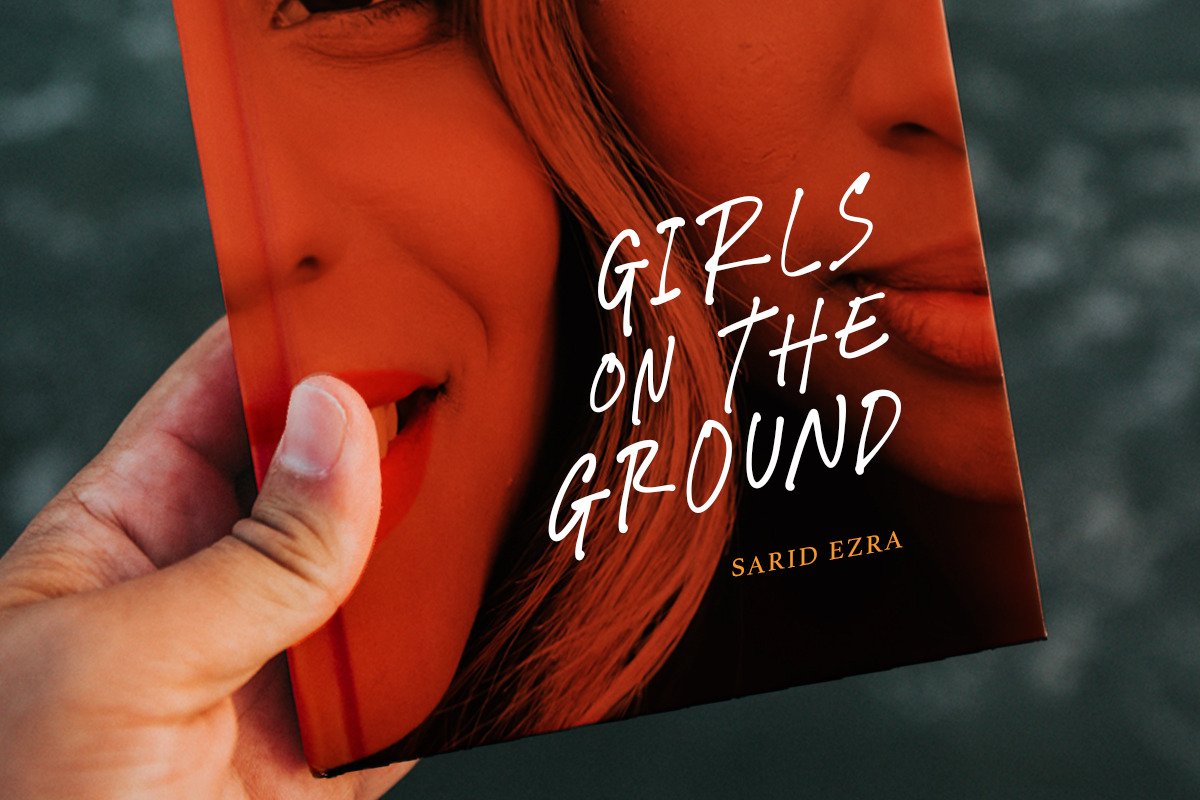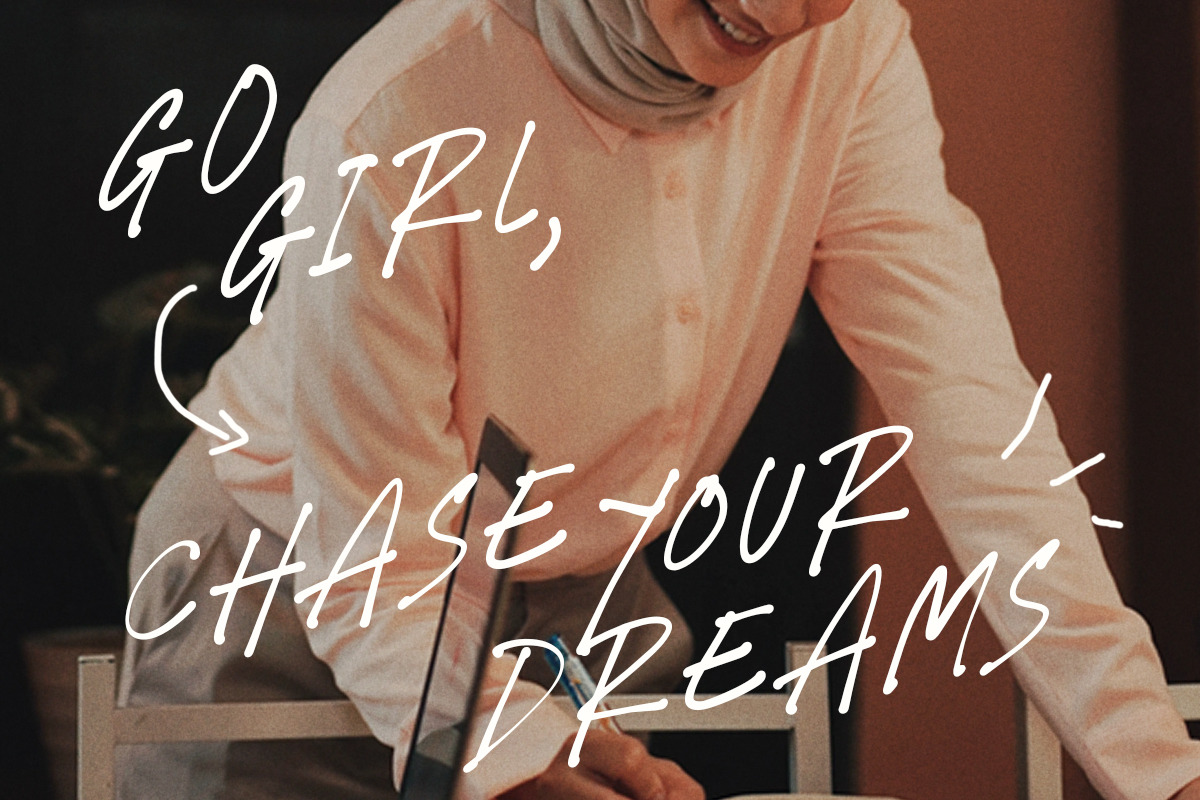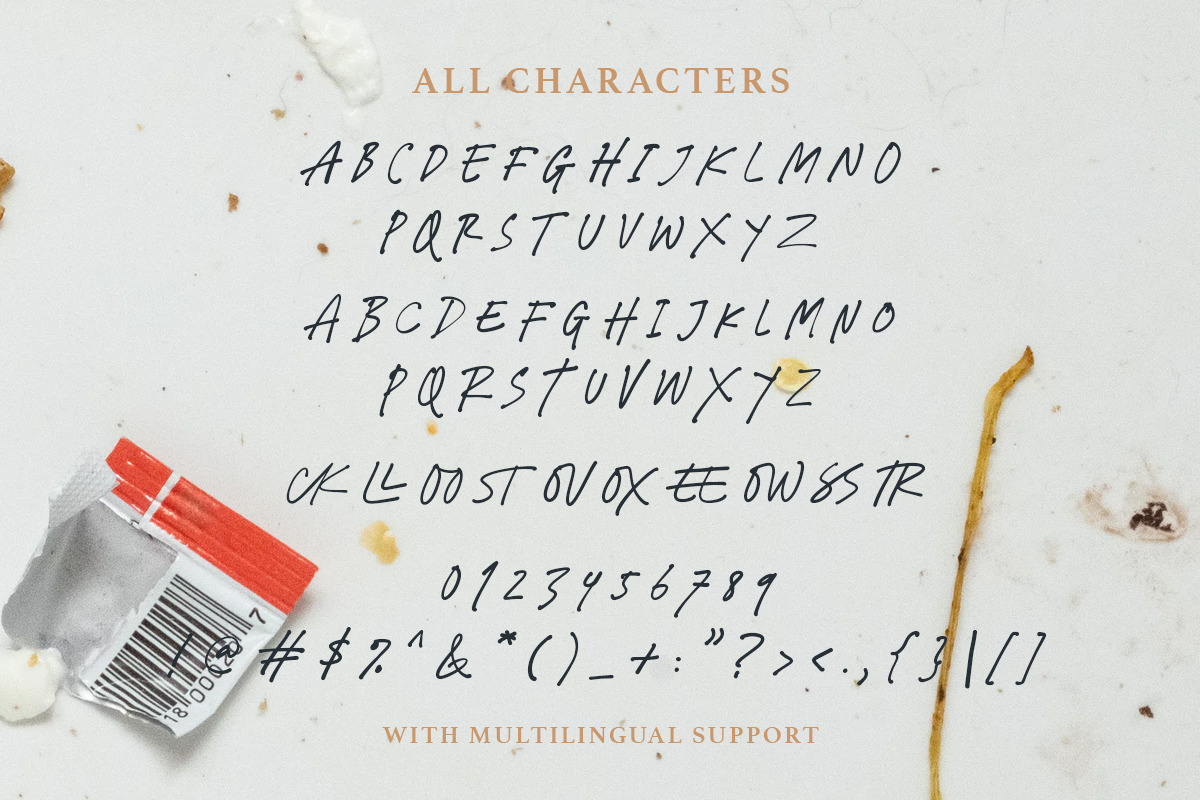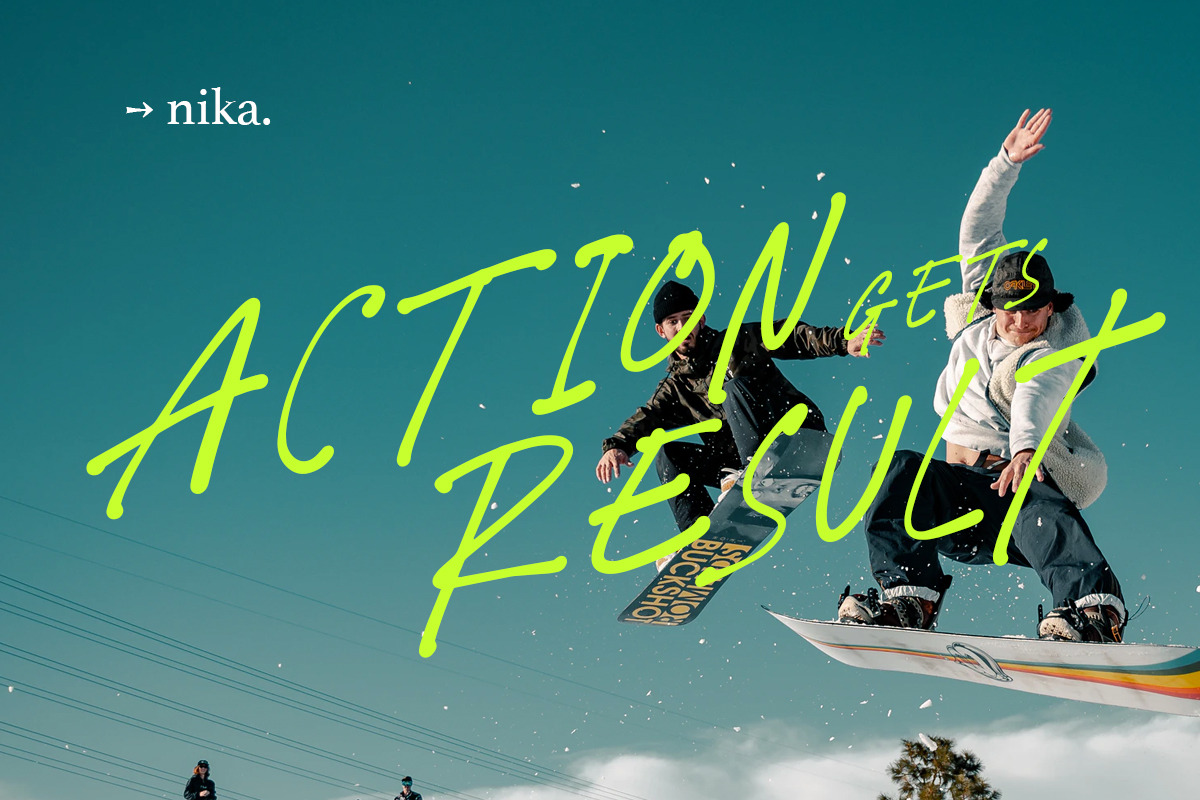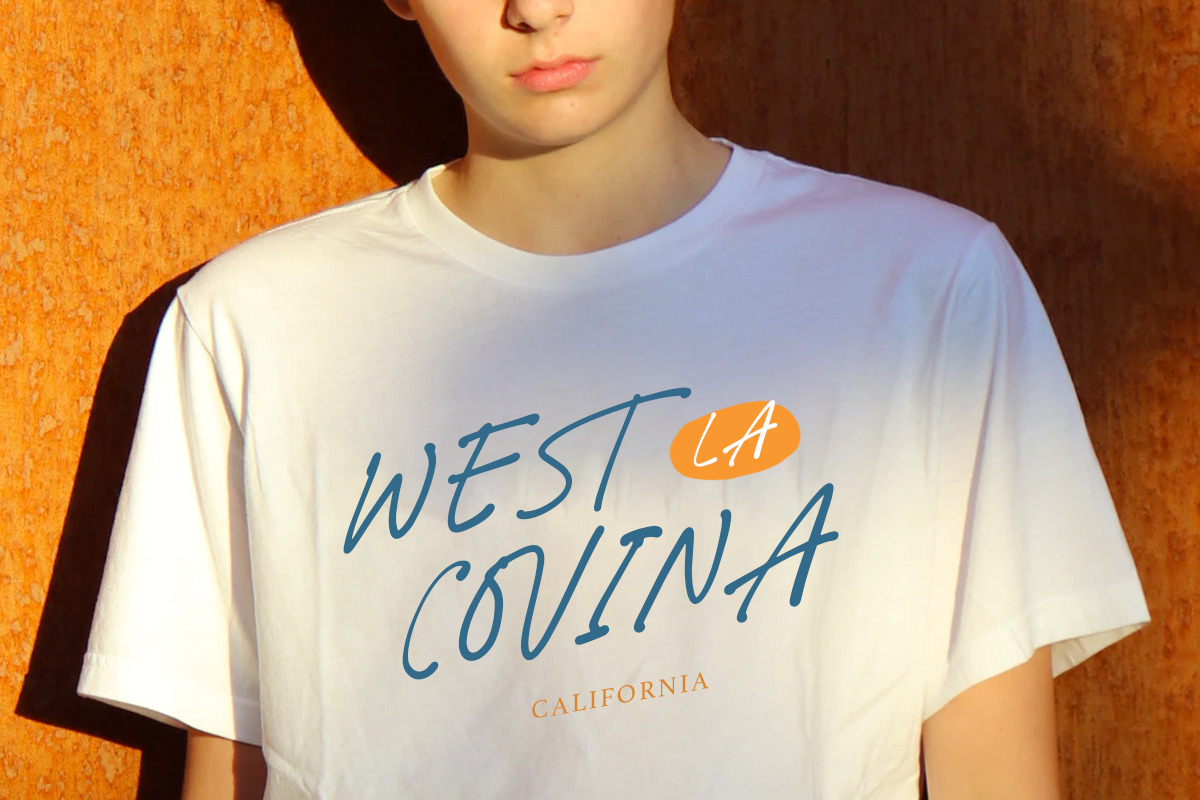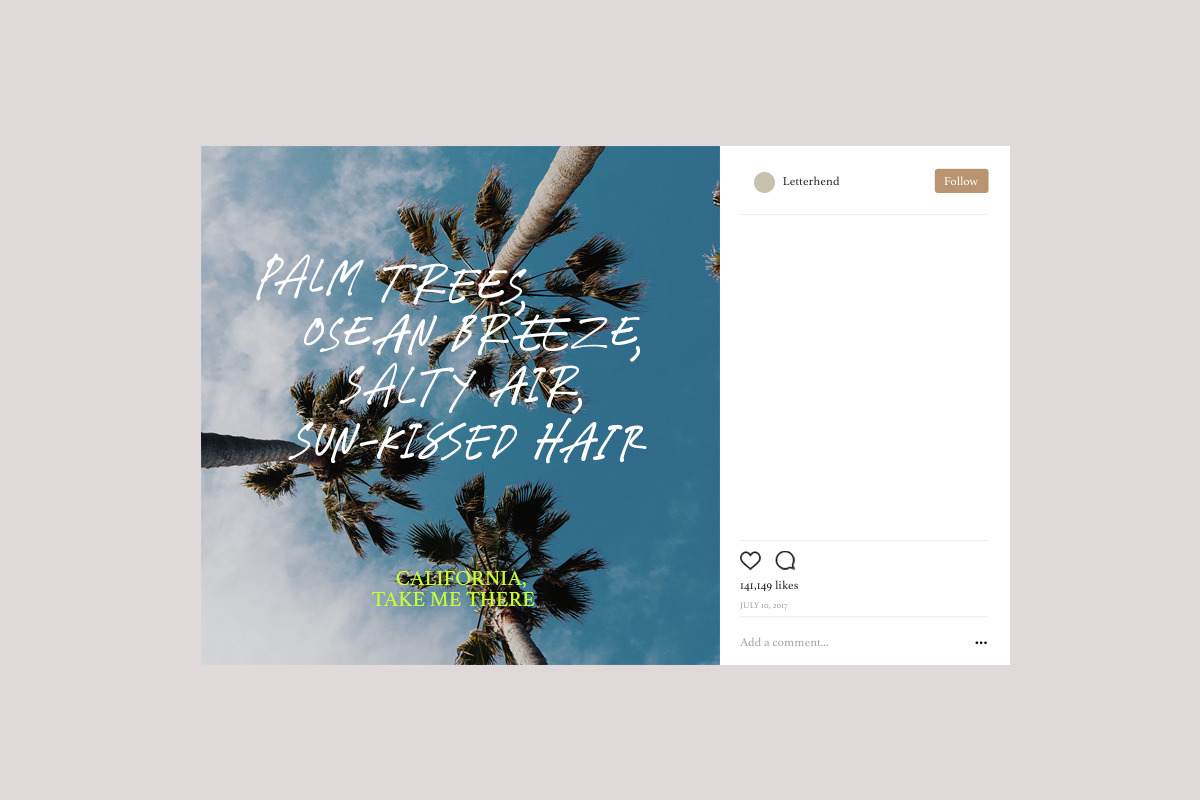
Messy trends - Handwritten Caps
Introducing, Messy Trends. Messy Trends is a handwritten caps font that is carefully crafted to create a sophisticated organic font. on top of that this font comes with 10 ligatures that will make this font is more perfect between each letter. They works perfect for branding, packaging, headline, apparel, quotes, advertising, etc.